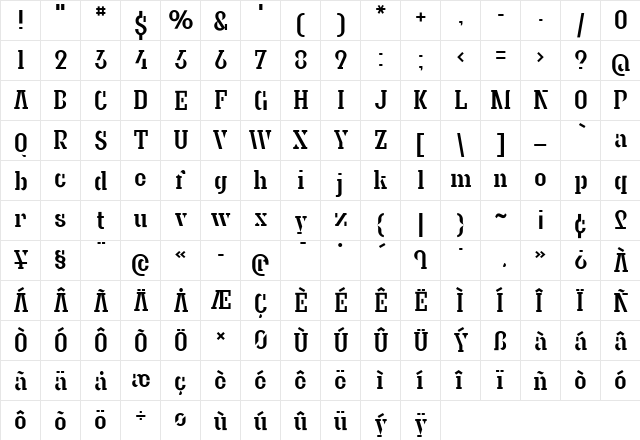
Granite Regular Font Preview
Granite Regular
Granite Regular Font Details
| Foundry | Gareth Hague |
Design Context for Granite Typeface
Granite takes a measured approach to typography — its balanced proportions and neutral character make it a reliable workhorse for both digital and print work.